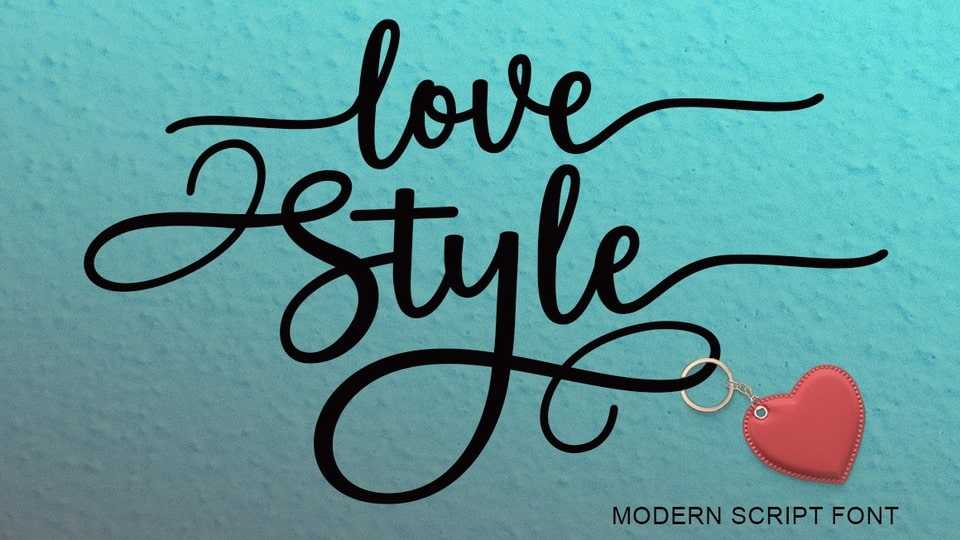
Download Love Style font, a dainty and sweet calligraphy typeface with characters that dance along the baseline. It will add a luxury spark to any design project that you wish to create.